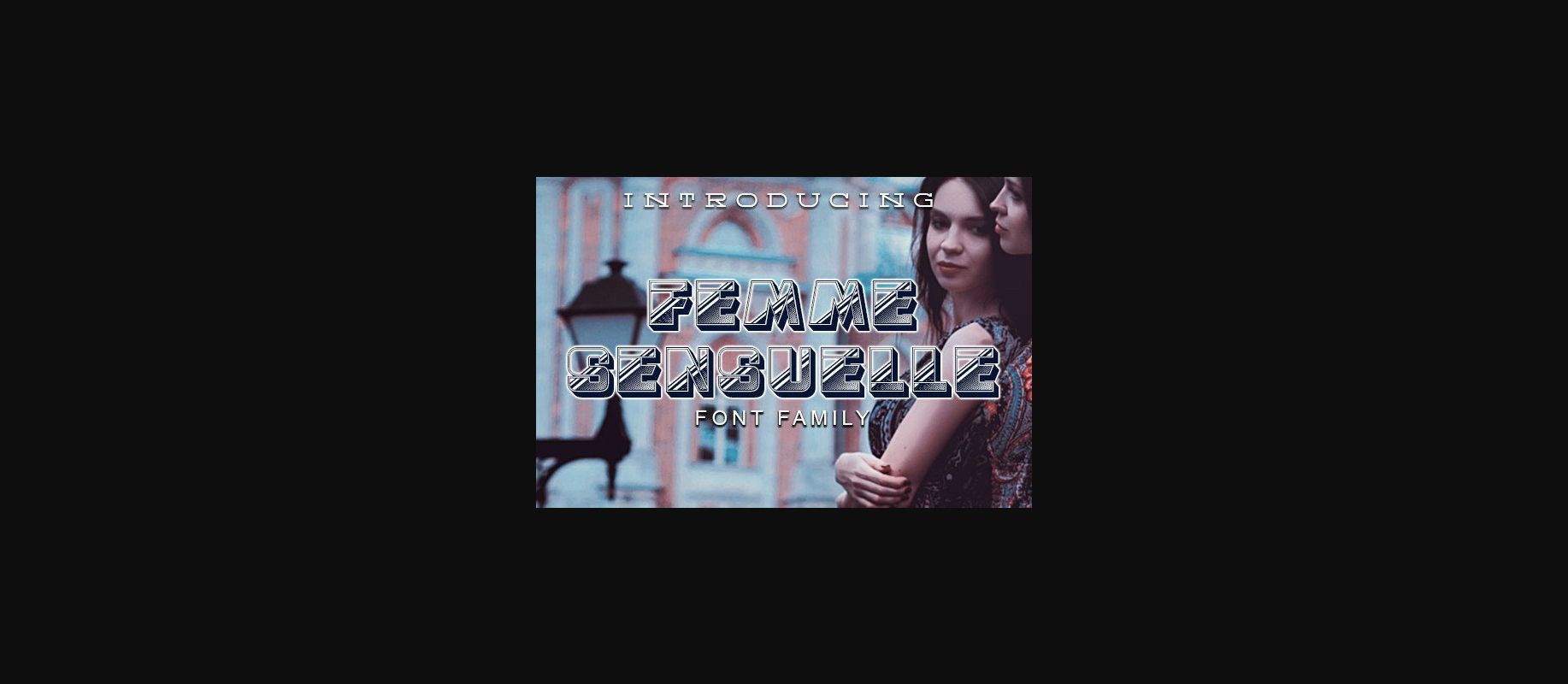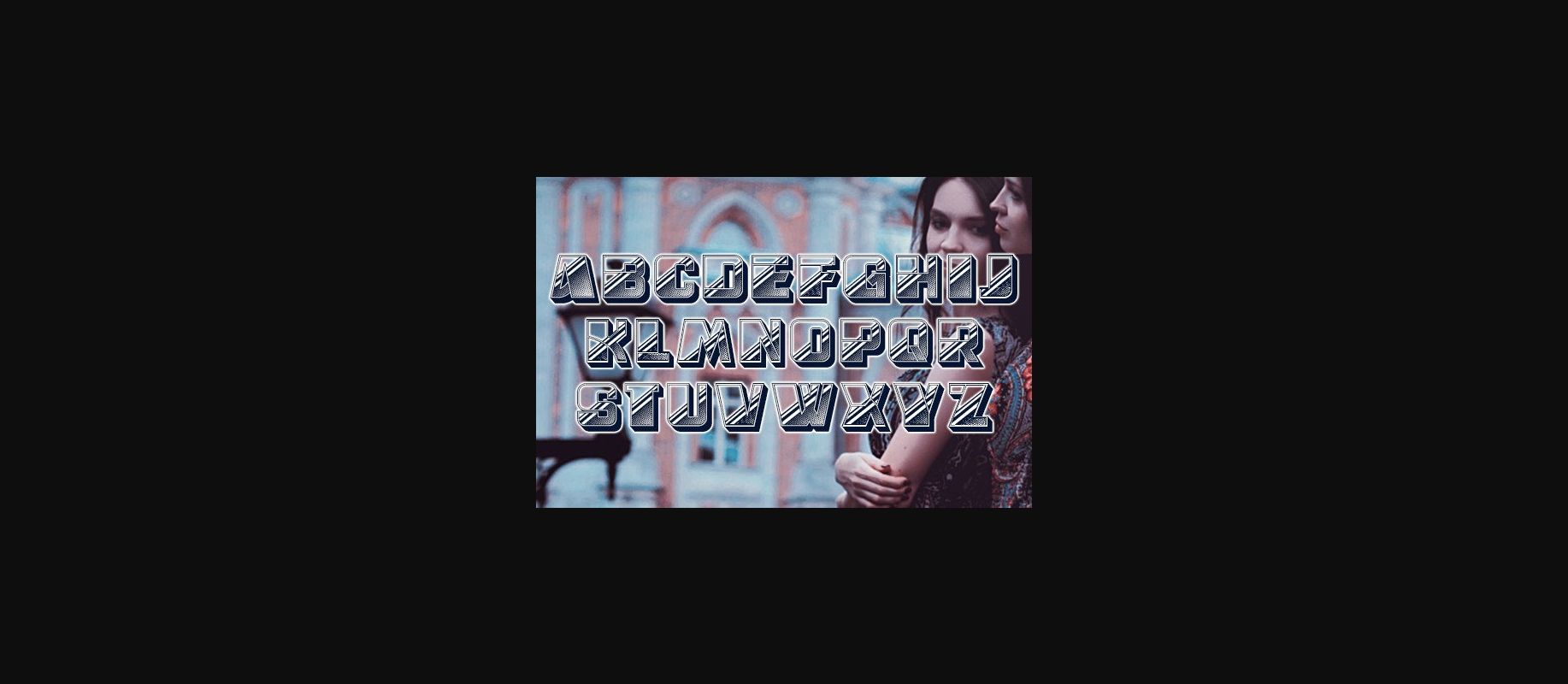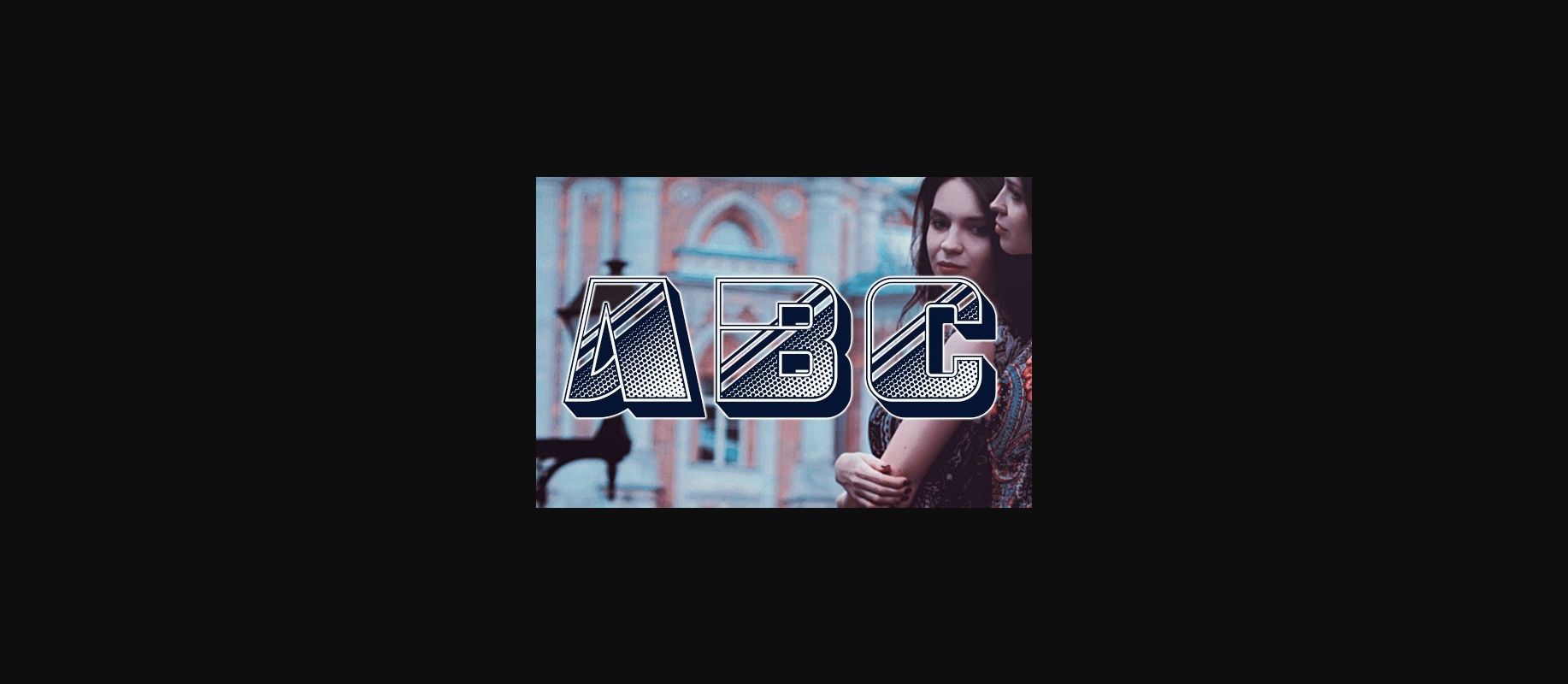
HomeDecorative FontsFemme Sensuelle Font Decorative Fonts Femme Sensuelle Font FacebookXPinterestWhatsApp 1 of 5 ... Femme Sensuelle Font Poster 2... Femme Sensuelle Font Poster 3... Femme Sensuelle Font Poster 4... Femme Sensuelle Font Poster 5... About Femme Sensuelle Font Femme Sensuelle is a trendy and stylish decorative font. Add it confidently to your projects and you will be astounded by the outcome generated! DOWNLOAD NOW People also explored Lady Font Americano Font Hello Diary Font Human Scarf Font Habits Monuga Font Art Nouveau SCF Steak House Font Mister Child Font Trollslayer 397 0 TagsFemme Sensuelle Font Previous articleBone Font FontNext articleDropker Font LEAVE A REPLY Cancel reply Comment: Please enter your comment! Name:* Please enter your name here Email:* You have entered an incorrect email address! Please enter your email address here Website: Save my name, email, and website in this browser for the next time I comment. Personal Use Free GoodFay Personal Use Free Read more about this font Eaglese Personal Use Free Read more about this font Krait Personal Use Free Read more about this font Romansya Personal Use Free Read more about this font BLOG Fonts That Capture the Spirit of New York City New York City is more than just a place—it’s an experience, a rhythm, a visual language... Free Fonts Risk: Why Free Fonts Can Be Dangerous for Designers Top 7 Google Fonts Alternatives for Faster and Privacy-Friendly Web Design (2025) The 10 Best Handwriting Fonts to Add Personality to Your Designs